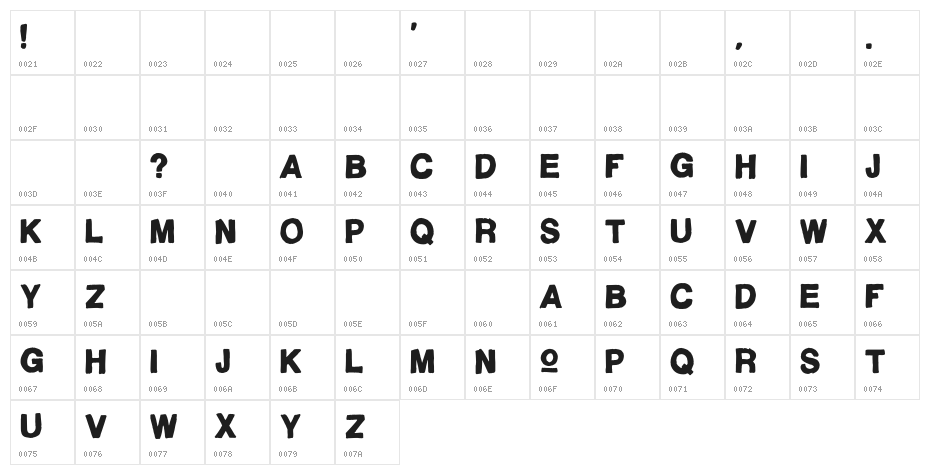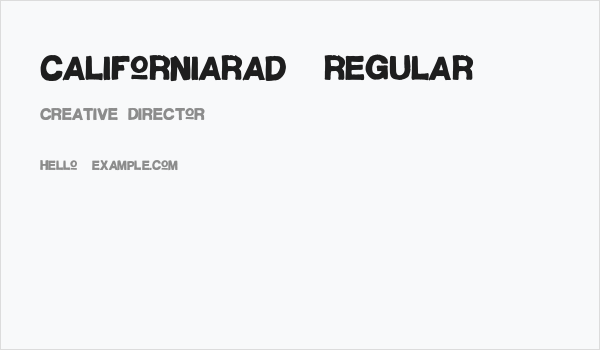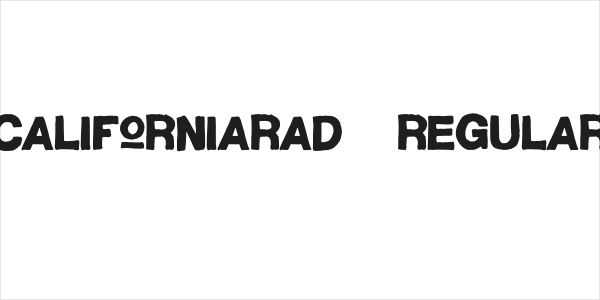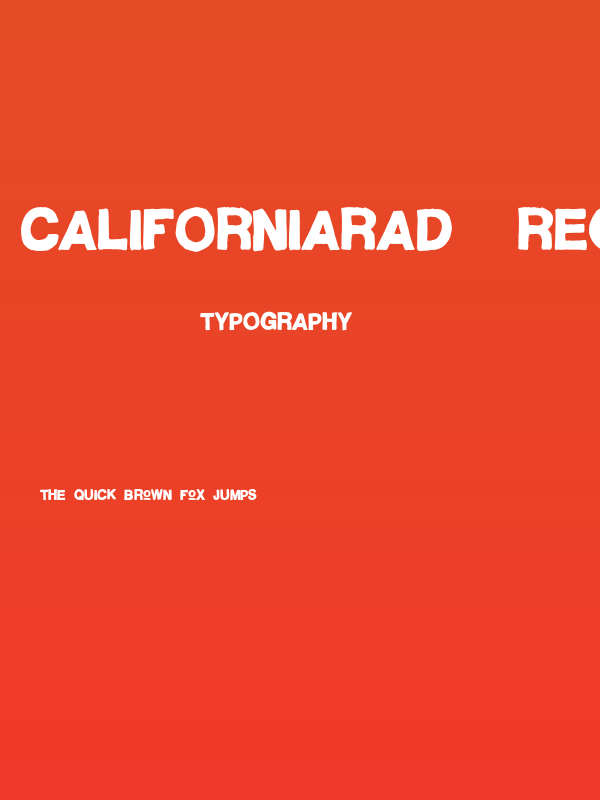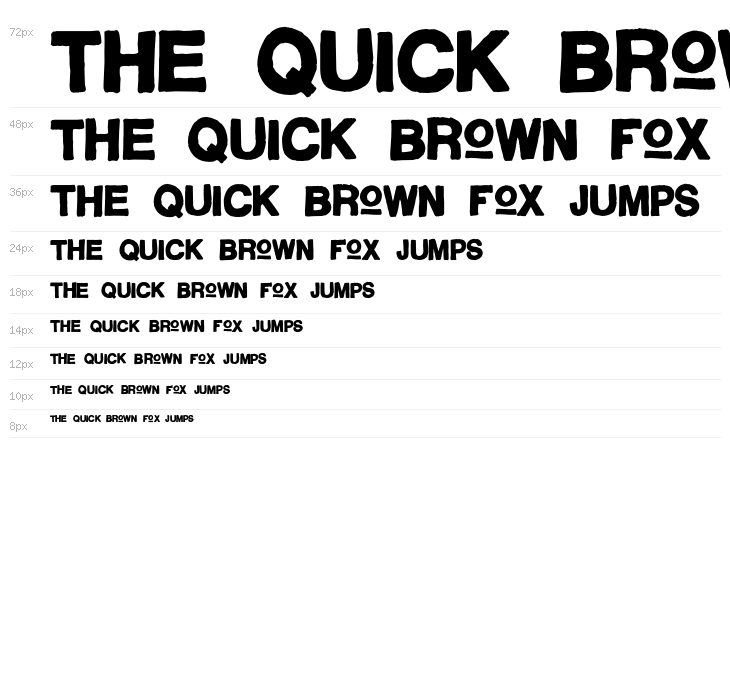
CaliforniaRad-Regular Font
CaliforniaRad-Regular Description
This font exhibits a bold and dynamic style with a hand-drawn appearance, characterized by uneven strokes and a slightly distressed texture. The uppercase letters are prominent and impactful, making it suitable for attention-grabbing designs. The font's playful and artistic nature is evident in its irregular shapes and varying line thickness, which add a sense of movement and energy. The characters are closely spaced, enhancing its bold presence. Its unique style makes it ideal for creative projects that require a touch of individuality and flair.
| Overall Style | Artistic and Playful |
| Proposed Projects | Ideal for posters, album covers, branding, and creative advertising campaigns. |